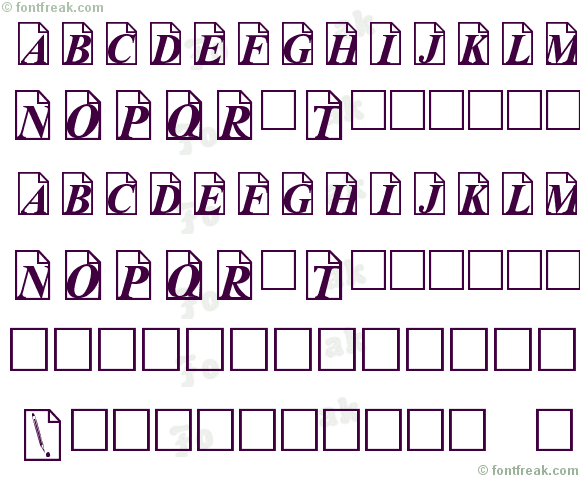
Paper Trail
About Paper Trail
The Paper Trail font by Snatchsoft is a distinctive decorative typeface that captures the essence of playful creativity. Released in 1998, this shareware font showcases a unique blend of whimsy and professionalism, making it a versatile choice for various design projects. Its visual characteristics include a medium stroke weight with minimal contrast, creating a bold yet approachable look. The letters feature charming paper-like elements, resembling folded corners that add a sense of depth and dimension. The spacing is balanced, ensuring readability while maintaining an engaging visual flow.
The Paper Trail font excels in several specific use cases. It is ideal for wedding invitations, where its playful style can bring a touch of elegance while still being fun. Additionally, it works wonderfully for movie posters, lending a unique flair that can capture the audience's attention. Restaurant menus can also benefit from this font, as it adds a creative twist to the dining experience, making the menu items stand out. Furthermore, it is perfect for branding materials aimed at small businesses, providing a memorable identity that resonates with customers.
The target audience for the Paper Trail font includes graphic designers seeking to infuse their projects with a unique personality, small business owners looking to enhance their branding, and content creators wanting to add a distinctive touch to their work. This font stands out due to its originality and playful nature, making it a memorable choice that can elevate any design. Whether you're looking for a font that conveys fun or professionalism, the Paper Trail font free download offers a perfect balance, ensuring your projects leave a lasting impression.